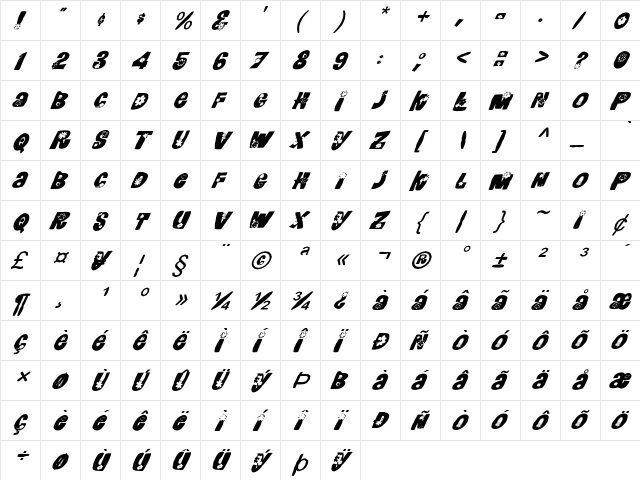
FZ UNIQUE 3 MANGLED ITALIC Normal Font Preview
FZ UNIQUE 3 MANGLED ITALIC Normal
FZ UNIQUE 3 MANGLED ITALIC Normal Font Details
Design Context for FZ UNIQUE 3 MANGLED ITALIC Typeface
FZ UNIQUE 3 MANGLED ITALIC is a composed and adaptable typeface that performs quietly and consistently across a wide range of design contexts. Its italic angle brings a sense of urgency and motion to the letterforms.
Pro Tip: Use FZ UNIQUE 3 MANGLED ITALIC for emphasis, pull quotes, and subheadings where its slanted energy can add rhythm to the layout.